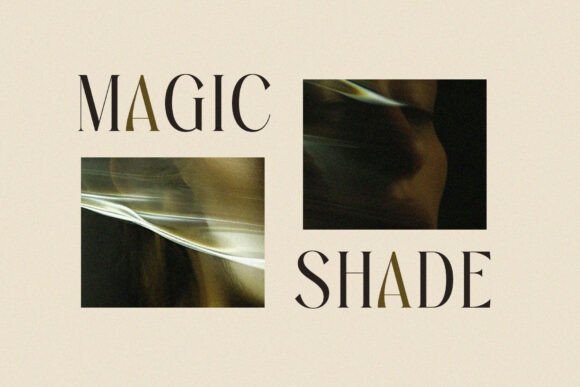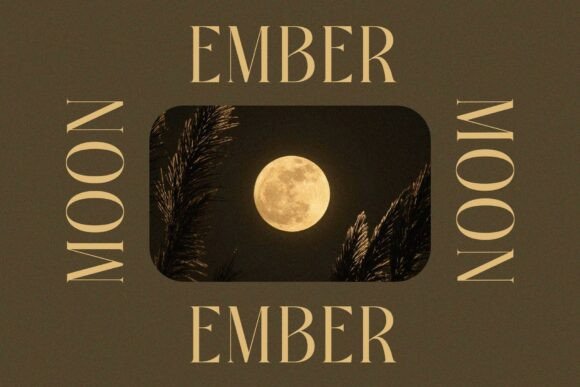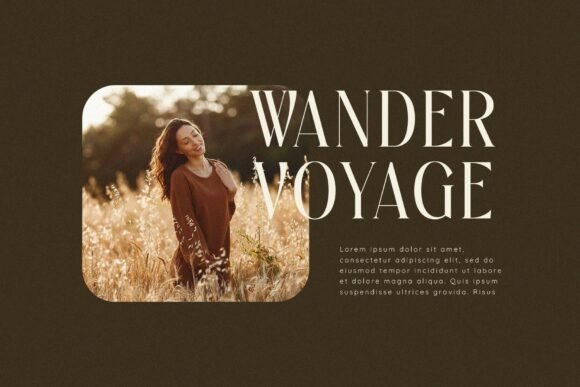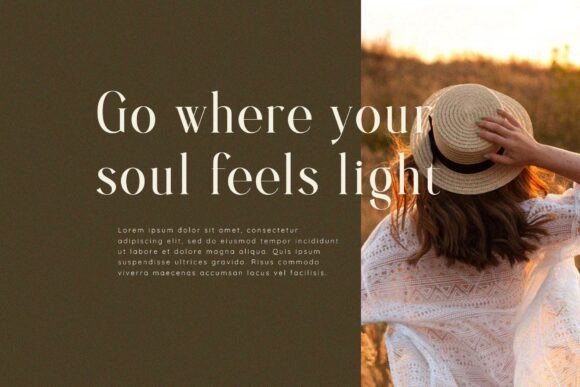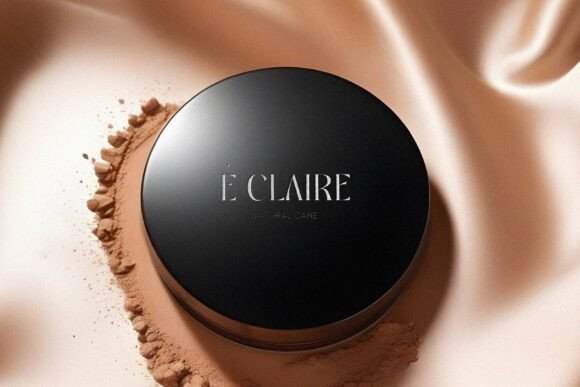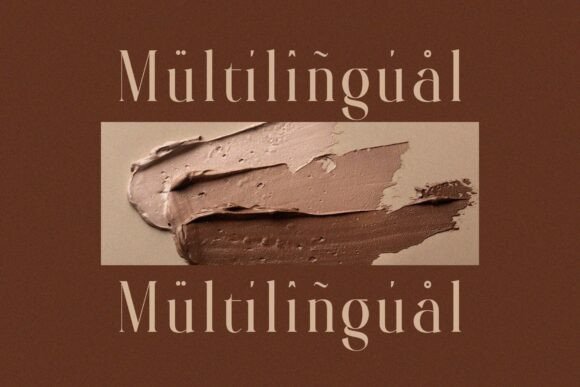
Introduction to Regie Font
As a designer, there’s nothing quite like the thrill of bringing a creative project to life. You’ve spent hours pouring over sketches, refining your vision, and selecting the perfect typography to set the tone. But what happens when you need that one special font to elevate your design from good to great? That’s where Regie Font comes in – a stunning, modern serif font that’s sure to make your projects stand out.
Regie Font is more than just a design resource – it’s a key to unlocking your creative potential. With its clean lines, smooth curves, and high-quality design, it’s the perfect choice for headings, logos, branding, magazines, product packaging, and invitations. And the best part? You can download it for free, making it accessible to designers of all levels.
Whether you’re a seasoned pro or just starting out, Regie Font is an invaluable addition to your design toolkit. Its transparent background and versatile style make it easy to work with, and its transparent background ensures seamless integration with any design.
Key Features of Regie Font
- Includes 5 font styles with transparent backgrounds for seamless integration.
- Unique characteristics include elegant and modern design elements, making it perfect for fashion, luxury, and high-end branding projects.
Honest Review: Regie Font
I recently stumbled upon the Regie Font and was excited to dive in and explore its features. As a designer, I’m always on the lookout for high-quality design resources to elevate my creative projects. The Regie Font did not disappoint.
- ✨ High-quality typography: The Regie Font boasts a beautiful, elegant design that’s perfect for a variety of creative projects, from print to digital media.
- ✨ Transparent background: This allows for easy editing and customization to fit your design needs.
- ⚠️ Limited font weights: While the Regie Font is available in several weights, it’s not as extensive as some other fonts I’ve worked with.
- ⚠️ No italic or oblique styles: If you’re looking for a font with italic or oblique styles, the Regie Font may not be the best choice.
Overall, I’m impressed with the Regie Font’s quality and versatility. While it may have some limitations, it’s a great addition to any designer’s toolkit. With its high-quality typography and transparent background, it’s a fantastic resource for any creative project.
Tips for Getting the Most Out of Regie Font
For the best results, use Regie Font in combination with other high-quality design resources. Experiment with different font sizes, colors, and arrangements to create a unique and eye-catching design.
Common Use Cases for Regie Font
Regie Font is perfect for logos, icons, graphics, and other creative projects. It’s also great for use in presentations, documents, and social media graphics.